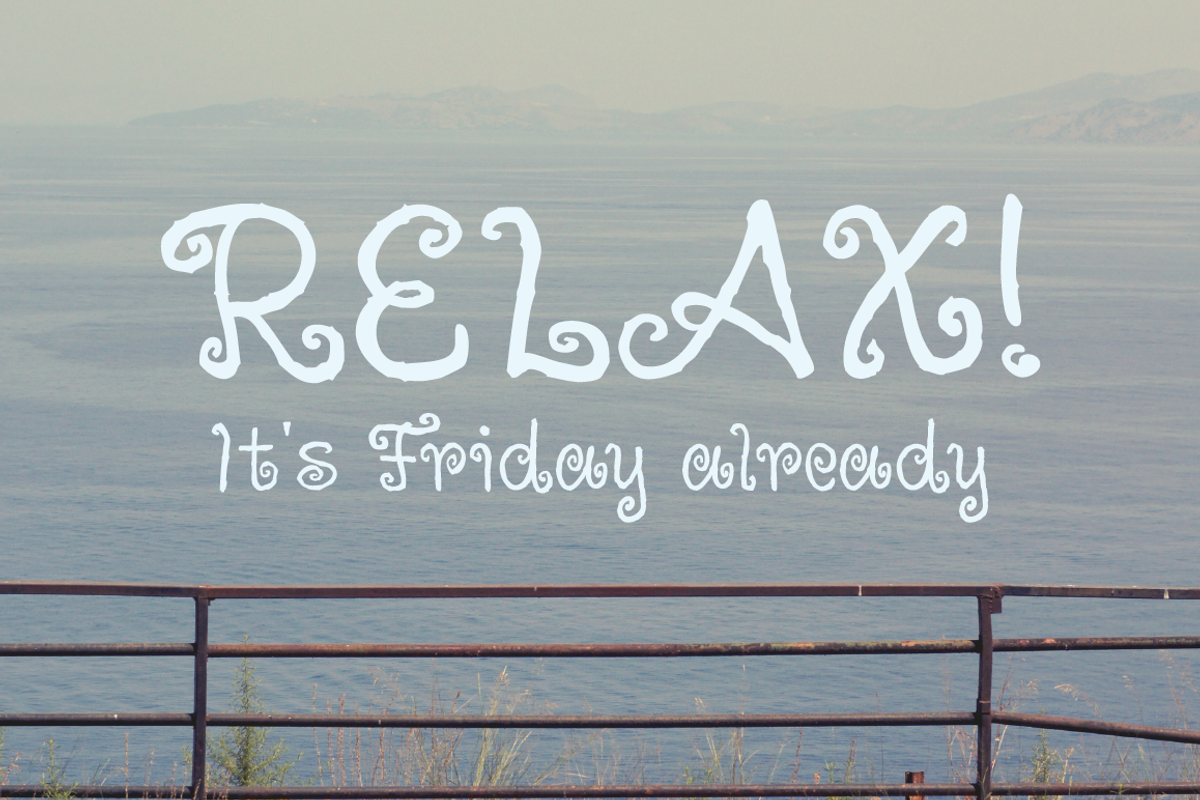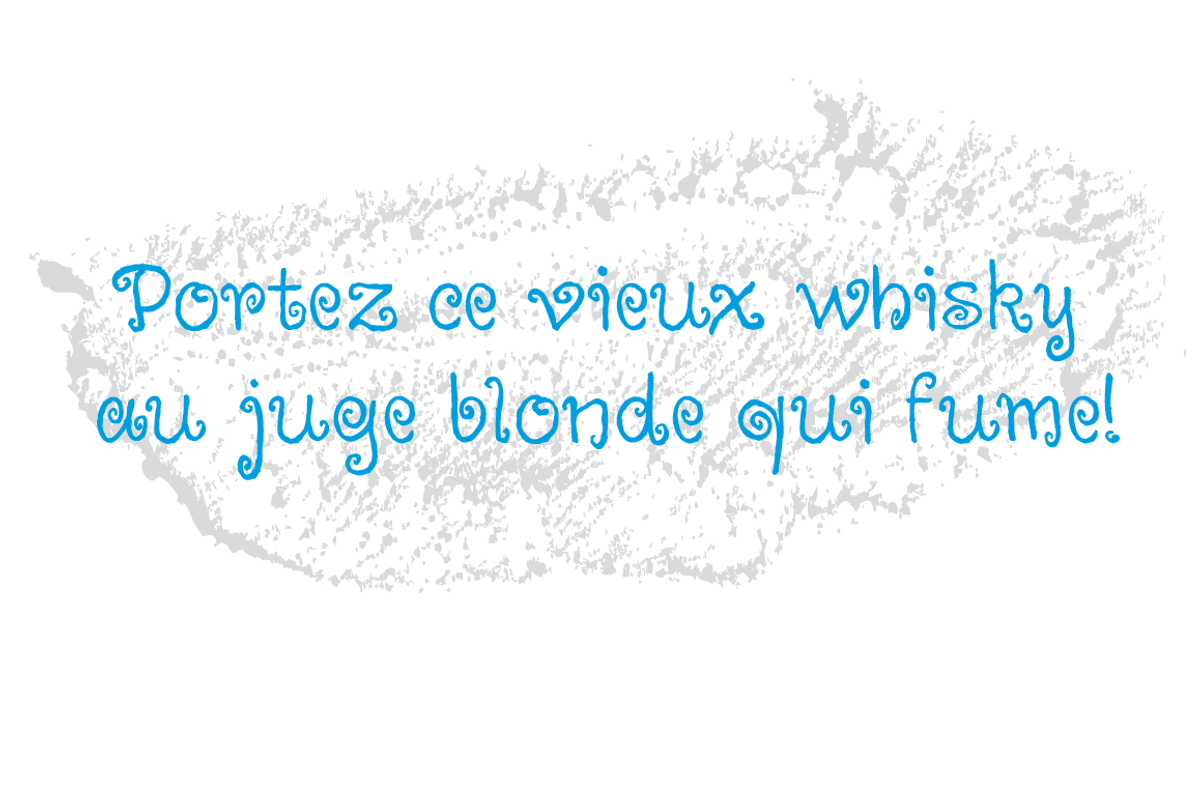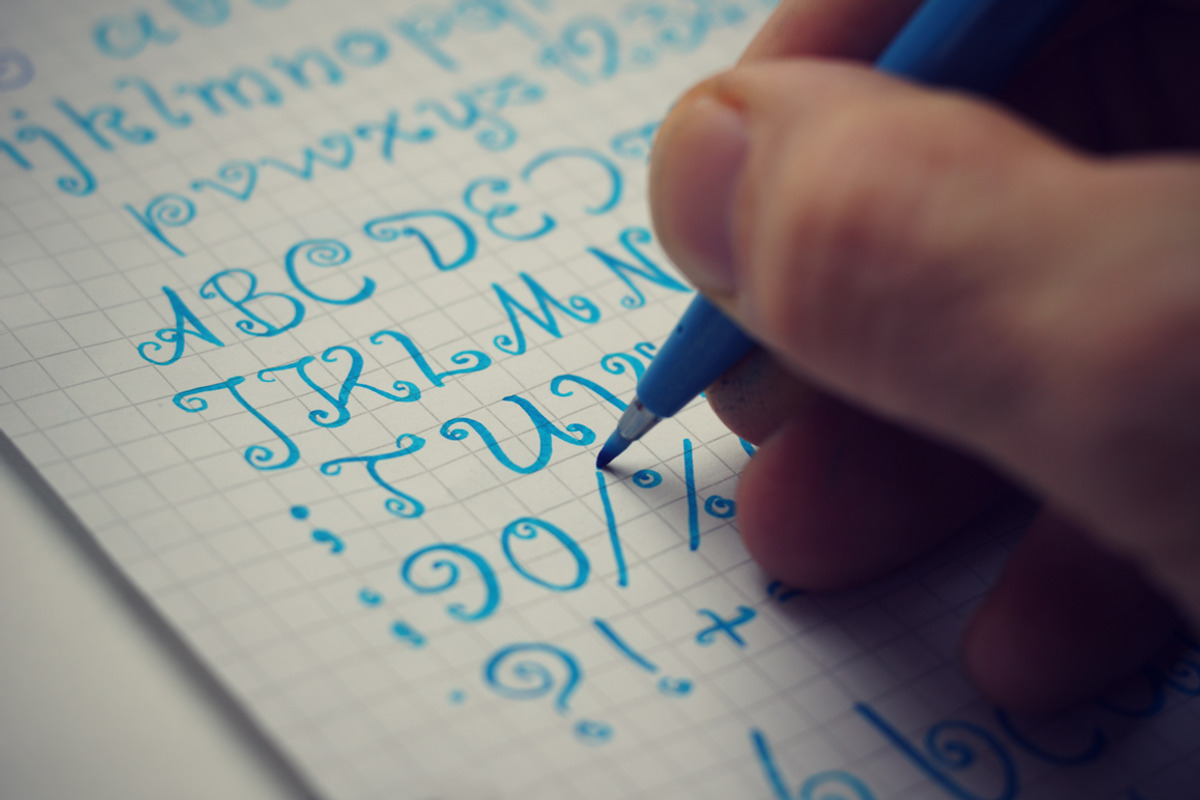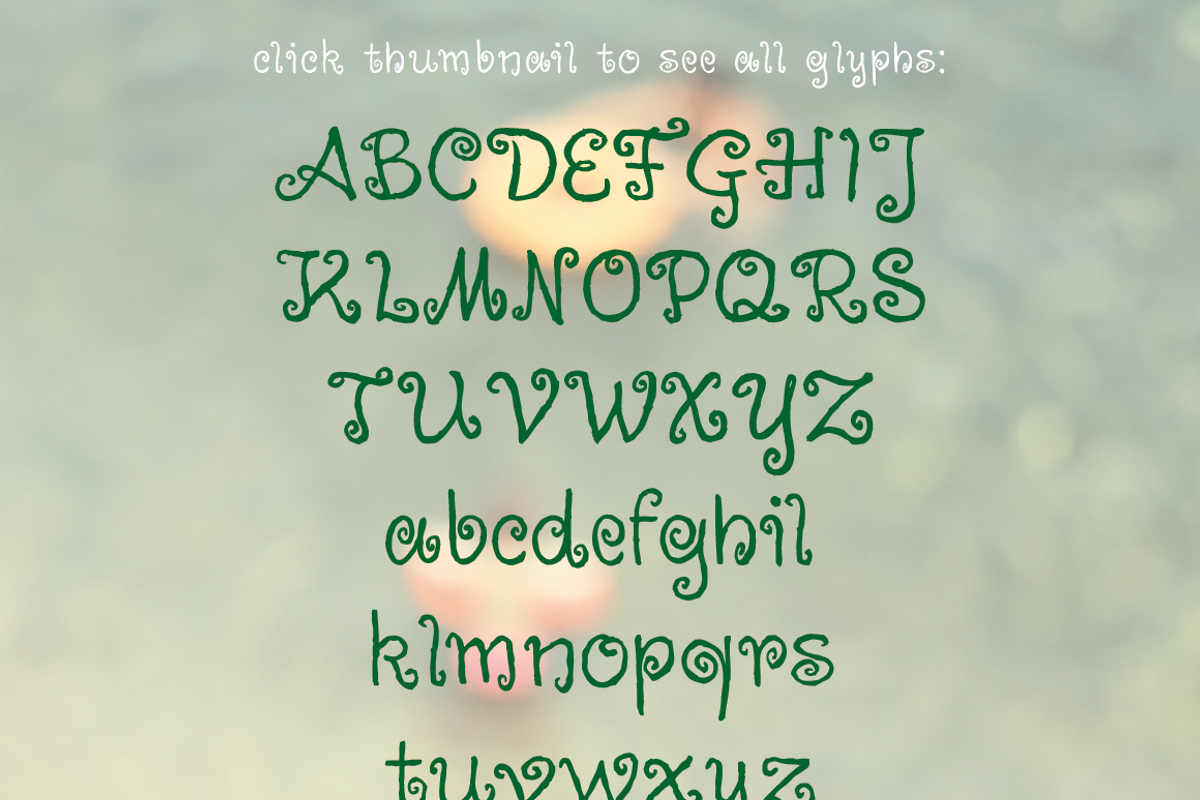
Palim Script Font
Palim Script Font by ateliervonau is a font selected for branding, posters, packaging, typography.
Why Palim Script Font is worth a look
Palim Script Font by ateliervonau fits naturally into Branding, posters, packaging, typography.